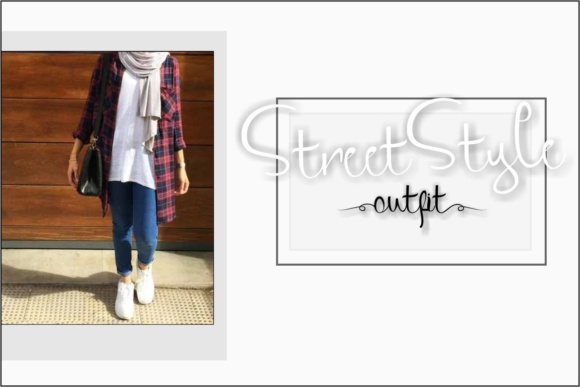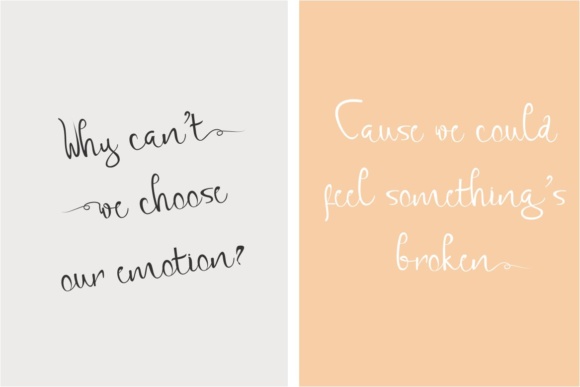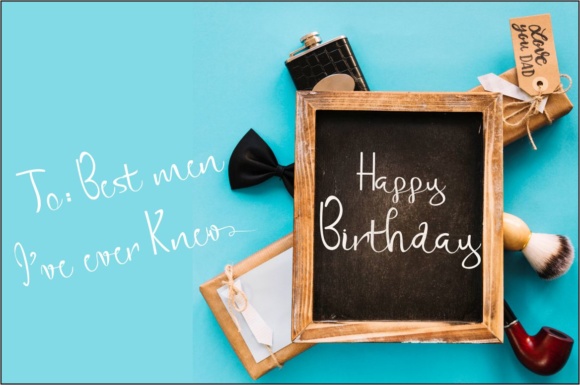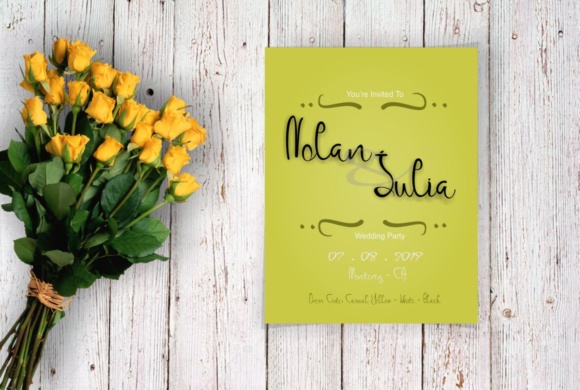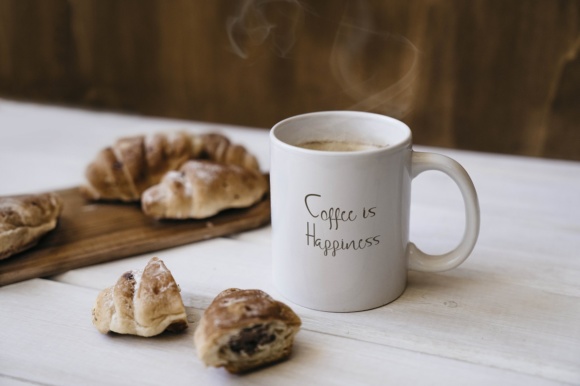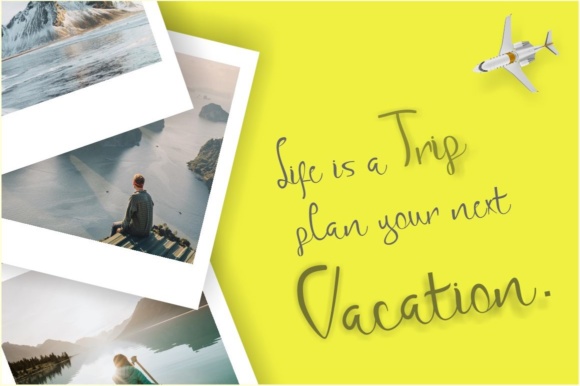
Something Sweet Font
About Something Sweet Font
Something Sweet is a new fresh font with a elegant, modern, and lovely touch.
It’s perfect for creating a balanced style, and features alternatives for some of the letters. Something Sweet can be used for a large range of different types of designs.